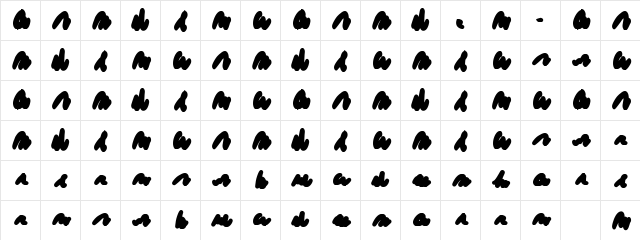
Redacted Script Bold Free Font
Redacted Script Bold
Foundry: Christian Naths
Designer: Christian Naths
Design Context for Redacted Script
Redacted Script flows with the natural rhythm of handwritten lettering, making it ideal for designs that call for warmth and personal expression. Its bold stroke weight gives it real presence on the page.
Font Pairing: Combine Redacted Script with a simple geometric sans for maximum contrast - the tension between flowing curves and clean structure is a classic typographic pairing.
Pro Tip: Use Redacted Script for short runs of text - names, titles, or taglines. Extended body copy in script faces tires the eye quickly.